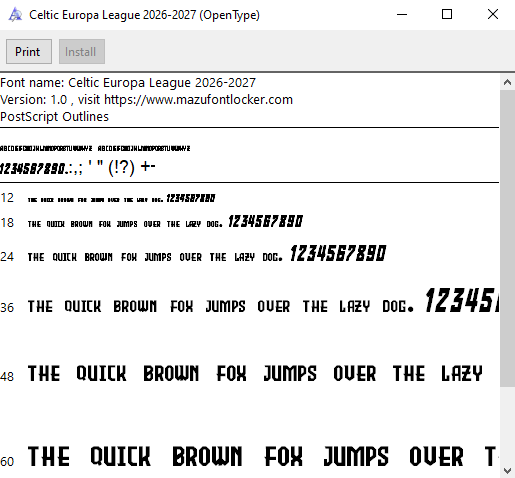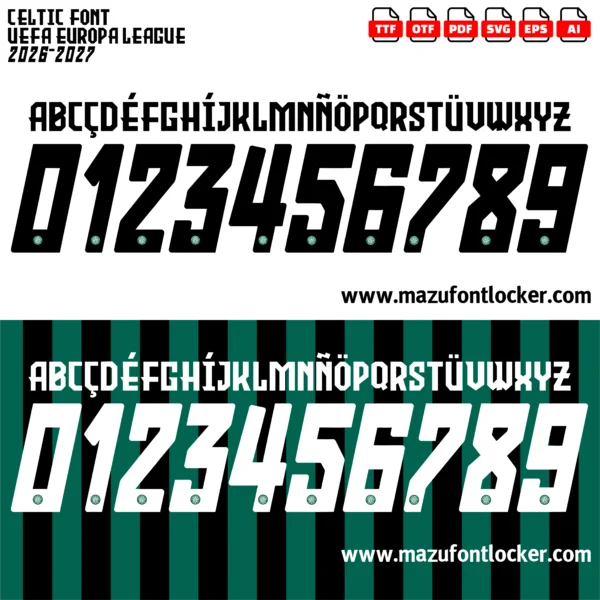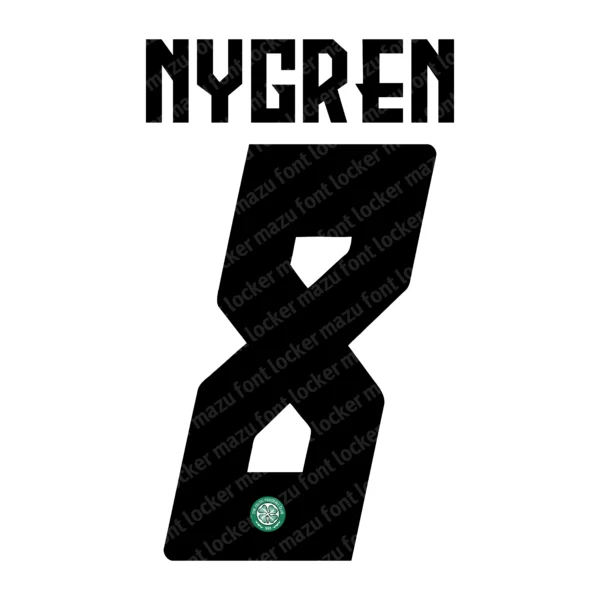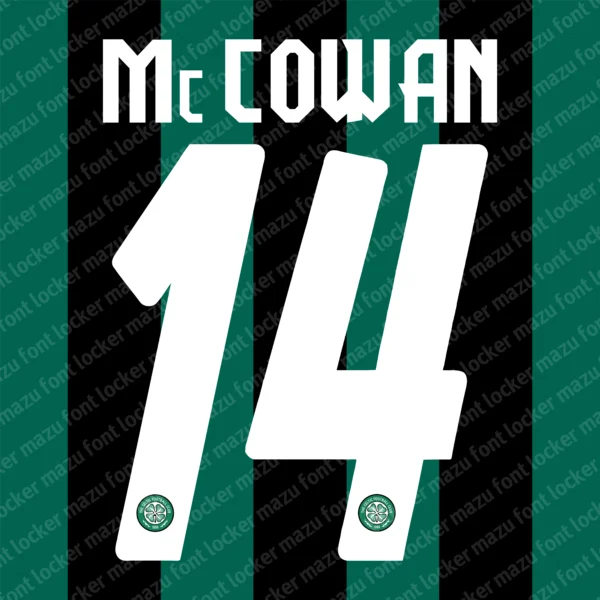
Celtic UEL 2026-2027 Font Vector – Stunning Bhoys Masterpiece
This font captures the razor-sharp, thunderous lettering that embodies Celtic’s proud club identity, rich Scottish football heritage, iconic green-and-white tradition, and relentless winning mentality — delivering premium quality and explosive energy for jersey mockups, football graphics, sports branding, and fan creations.
Celtic UEL 2026-2027 Font Vector – Iconic Bhoys Heritage Typeface
The Celtic UEL 2026-2027 Font Vector is a premium typeface that accurately recreates the official match lettering worn by Celtic FC during the 2026-2027 UEFA Europa League campaign. This high-quality vector font kit captures the bold, clean, and instantly recognizable typography that perfectly complements the club’s iconic green and white identity.
Designed for professional designers, football enthusiasts, and passionate Celtic supporters, the Celtic UEL 2026-2027 Font Vector delivers exceptional authenticity for creating realistic jersey mockups, football merchandise, social media graphics, match posters, and custom fan artwork. Every character has been carefully recreated to match the powerful and precise visual style of one of Scotland’s most successful and historic football clubs.
This font stands out thanks to its precise vector construction and authentic club-inspired styling. Every letter and numeral has been meticulously recreated to match the official shirt lettering used throughout the 2026-2027 Scottish Premiership and UEFA Europa League campaigns. Whether you’re producing professional kit templates or creating eye-catching football content, the Celtic UEL 2026-2027 Font Vector delivers a genuine match-ready appearance inspired by the proud identity of the Glasgow giants.
The lettering featured in the Celtic UEL 2026-2027 Font Vector combines clean geometric lines with powerful modern proportions. The result is a premium and highly readable typeface that reflects Celtic’s winning mentality, attacking football, precision, and proud Bhoys heritage.
• Complete uppercase A–Z alphabet and numbers 0–9 in authentic Celtic UEL 2026-2027 style
• Recreate the distinctive look of Celtic player names and squad numbers for creative projects
Known for its rich history, passionate supporters, and commitment to attacking football, Celtic remains one of Scotland’s most celebrated clubs. The Celtic UEL 2026-2027 Font Vector is designed to capture the bold visual character associated with the club’s modern football identity.